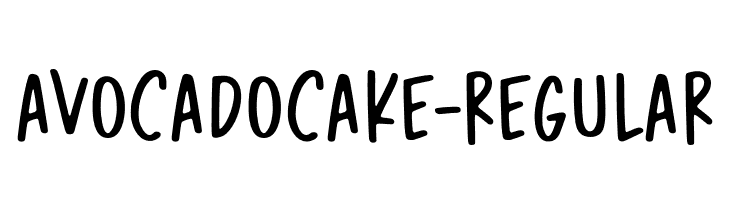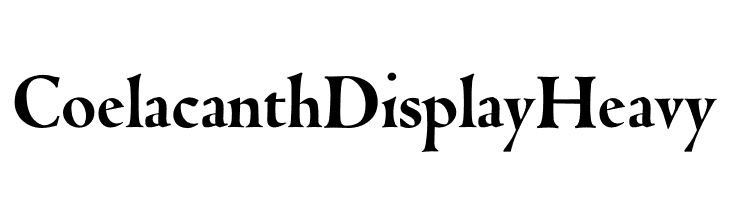
A bold, high-contrast serif font with dramatic and angular serifs.
A decorative font featuring intricate animal motifs within each letter.
A playful handwritten font with smooth, fluid strokes and a casual feel.
A bold, distressed font with a vintage, grunge aesthetic.
A decorative and abstract font with swirling, fluid patterns.
A bold, condensed font with a modern and geometric style.
An elegant serif font with a modern outline design.